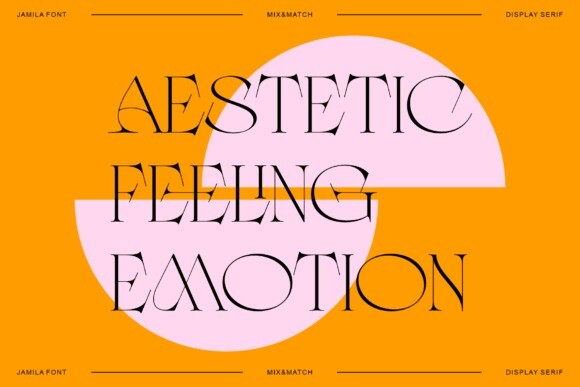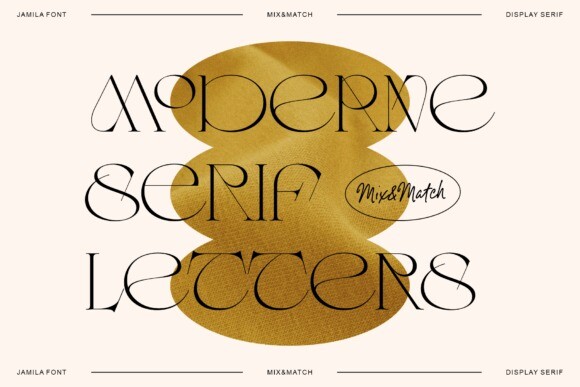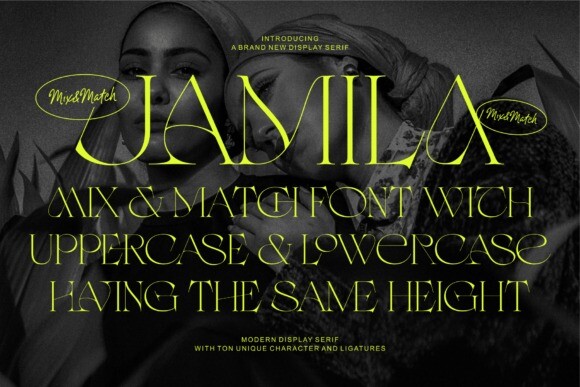
Jamila Font
Jamila Font, a stylist serif display font designed with only capital letters. Its versatile characters allow you to mix & match with easily, creating eye-catching designs for a variety of projects. With its modern and clean design, adding a touch of elegance and neatness to various projects. Perfect for logos, headlines, branding, websites, social media quotes, and more.